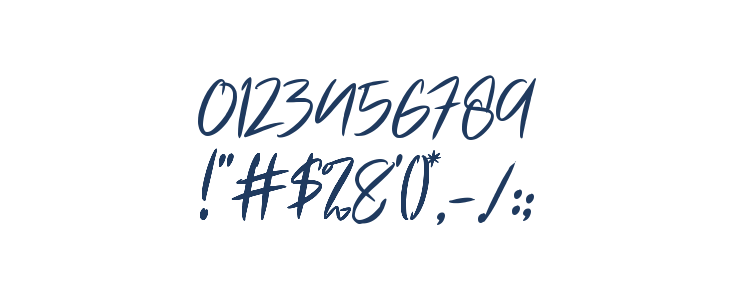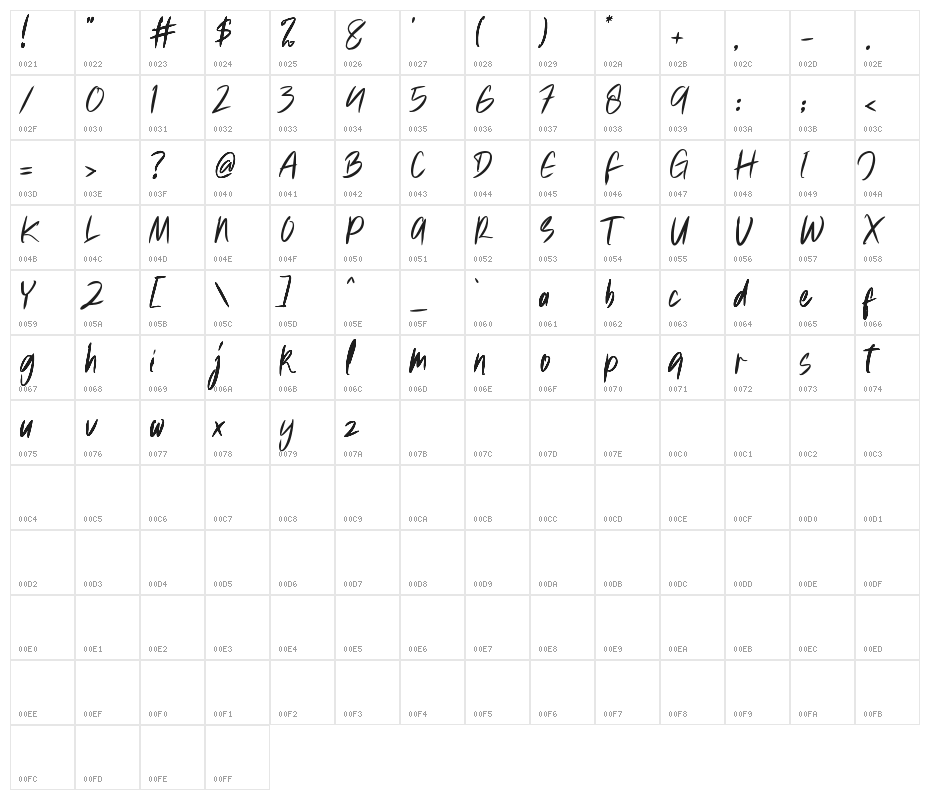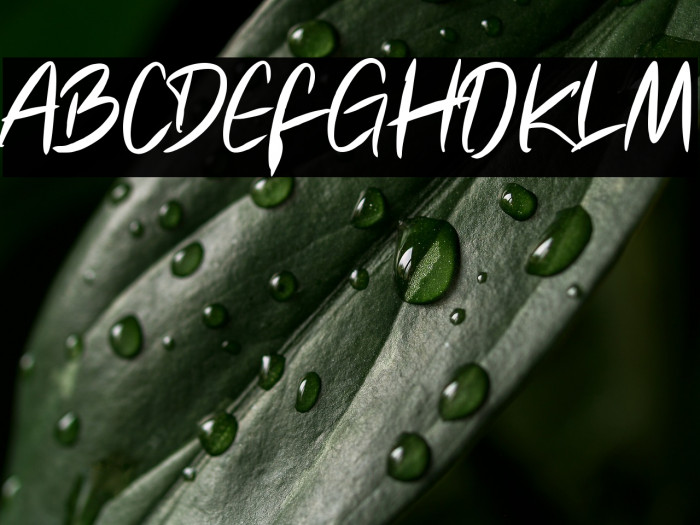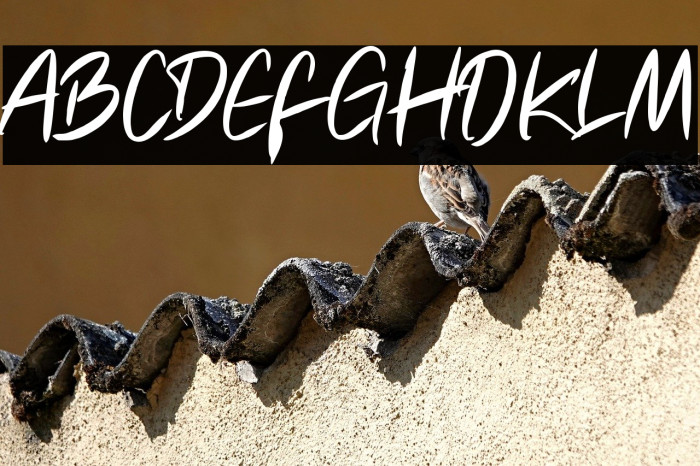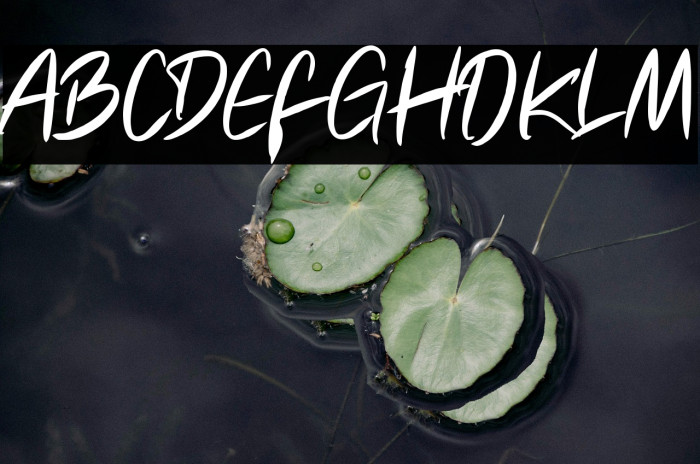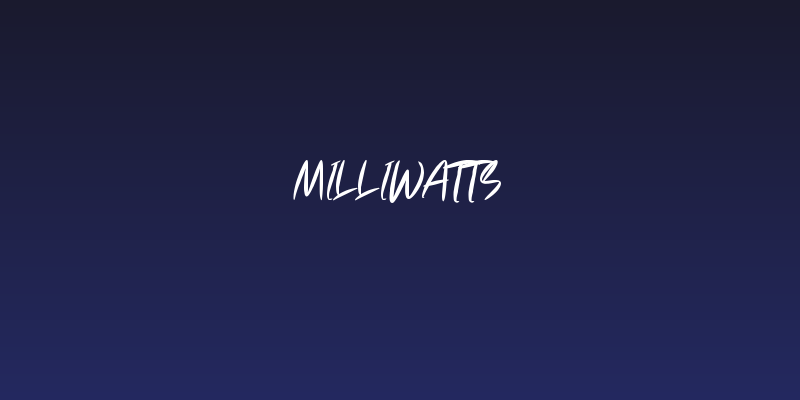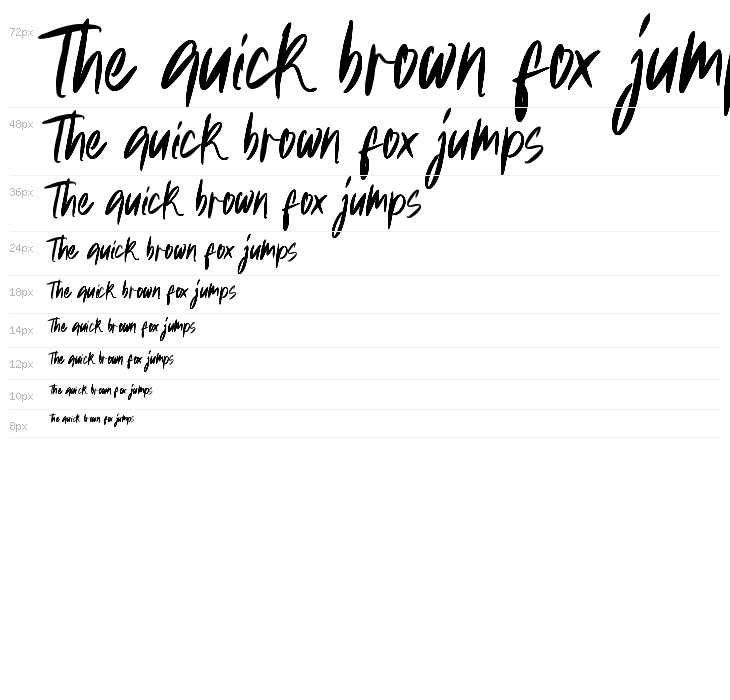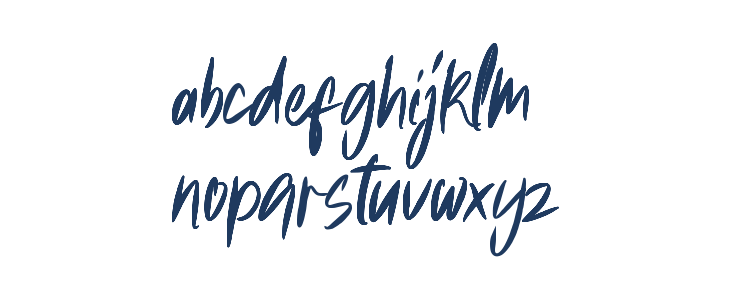
milliwatts Font
milliwatts Description
This font exudes a dynamic and energetic vibe with its bold, sweeping strokes and fluid, cursive style. The characters are crafted with a sense of movement, giving them a lively and expressive appearance. The uppercase letters are tall and commanding, while the lowercase letters maintain a consistent flow, enhancing readability. Numbers and special characters are designed with the same flair, ensuring a cohesive look across all text. The font's hand-drawn quality adds a personal touch, making it suitable for projects that require a human element. Its artistic style is perfect for creative and informal applications.